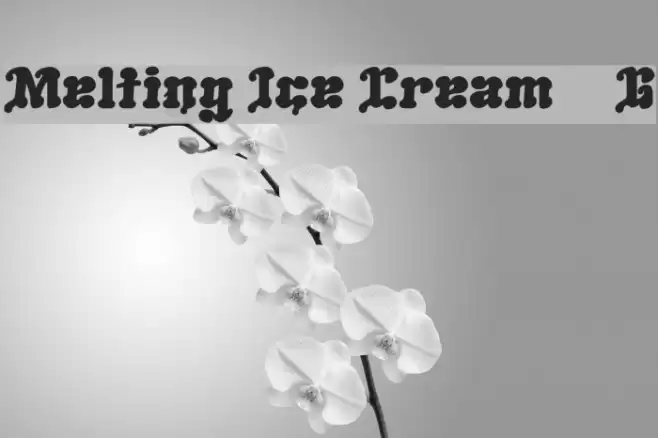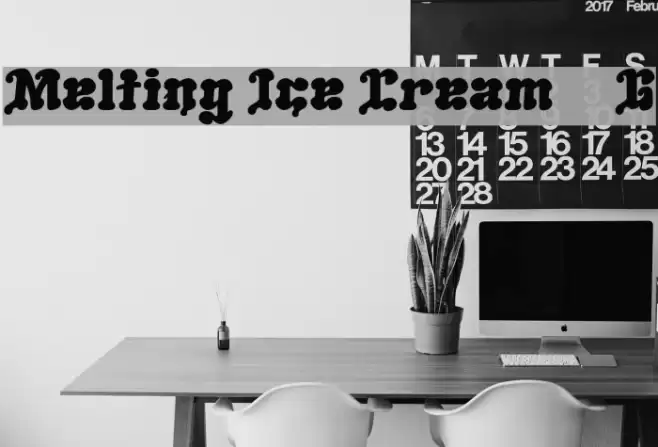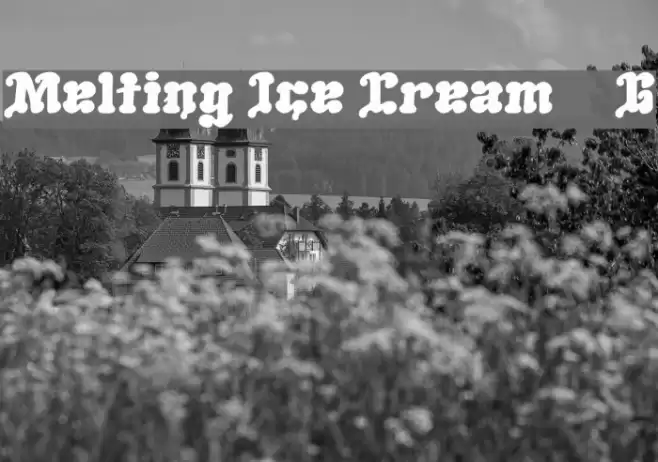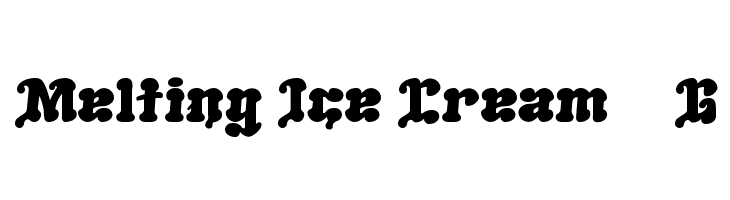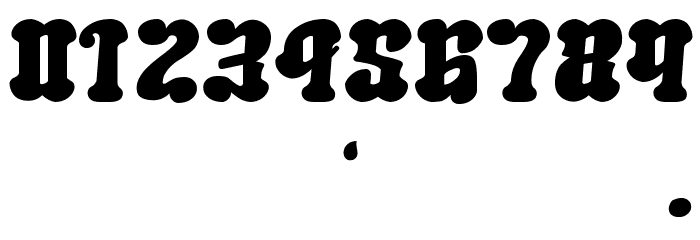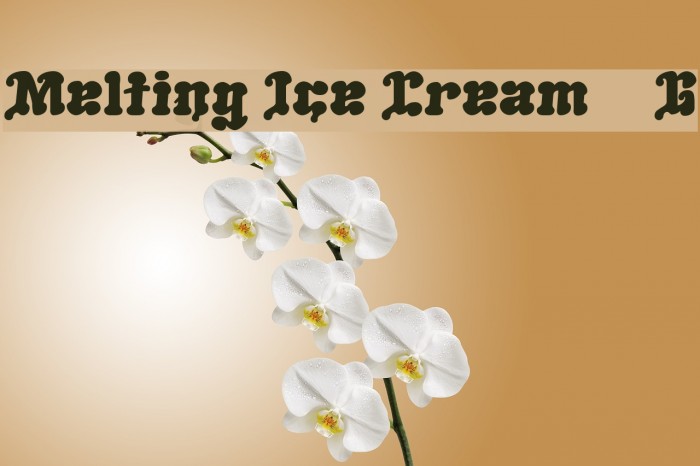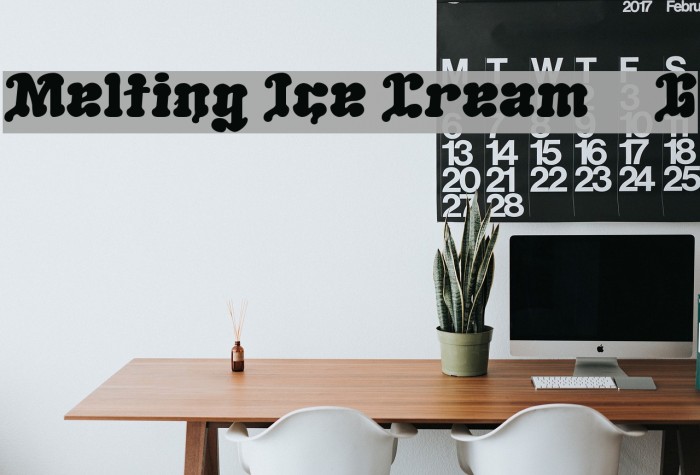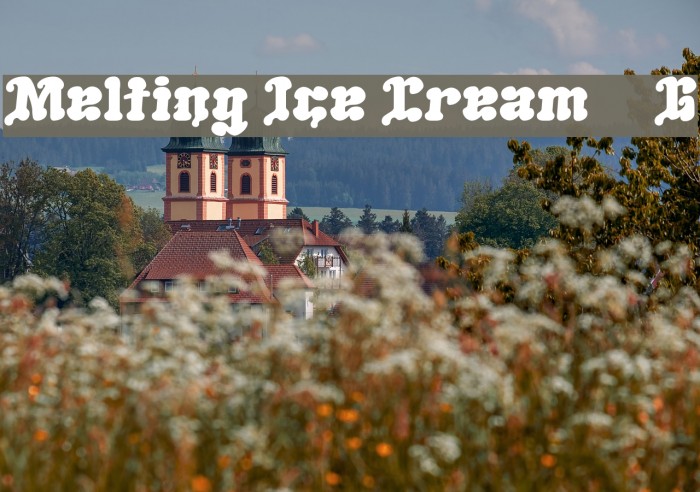
Melting Ice Cream__G Font
Melting Ice Cream__G Description
This font features a playful and bold design with a unique melting effect that gives it a whimsical and fun appearance. The characters are rounded and thick, with a consistent flow that mimics the look of dripping or melting. This style is reminiscent of vintage ice cream parlor signage, adding a nostalgic yet modern twist. The uppercase and lowercase letters maintain a uniformity in style, while the numbers and special characters are designed to match the overall aesthetic. The font's distinctive look makes it ideal for creative and eye-catching designs.
A playful, bold font with a melting effect, perfect for creative designs from Uncategorized fonts.